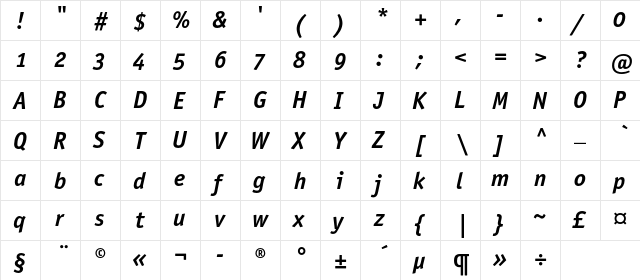
OfficinaSansBoldOSC Italic Font Preview
Design Context for OfficinaSansBoldOSC Typeface
OfficinaSansBoldOSC takes a measured approach to typography — its balanced proportions and neutral character make it a reliable workhorse for both digital and print work. The slanted form adds forward momentum and visual energy. The heavy weight commands attention and anchors typographic hierarchies.
Pro Tip: Try OfficinaSansBoldOSC for annotation and caption copy alongside an upright companion — the contrast in angle creates a dynamic but ordered typographic system.